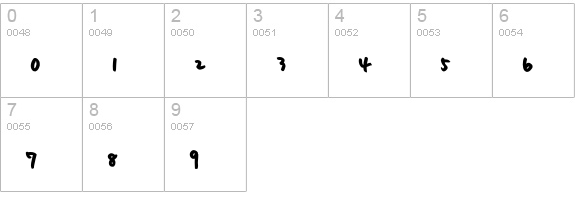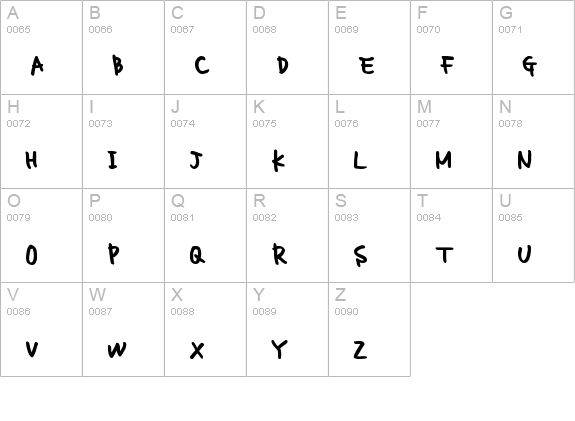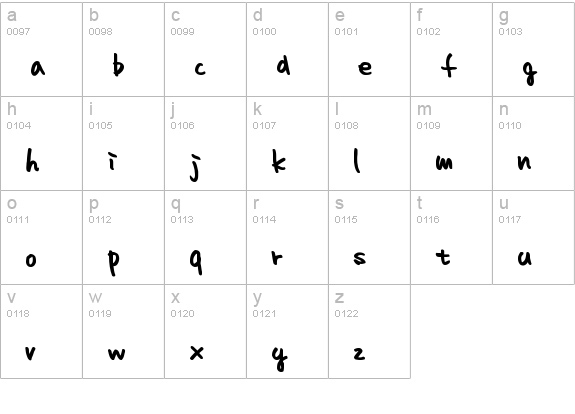
homework normal Font Details
homework normal is the standard, neutral variant in the homework typeface family \xE2\x80\x94 well suited to general body text, paragraphs, and standard typographic work.
This homework normal font is a versatile and professional typeface that is perfect for all your academic and professional needs. With its clean lines and classic design, this font is sure to make your work stand out. Whether you're working on an essay, presentation, or report, this font will help you communicate your ideas effectively. The best part is that this font is completely free to download at FontsMarket.com. You don't have to worry about any hidden fees or subscriptions - simply visit the website and start using this font right away. With its wide range of characters and symbols, this font is suitable for a variety of projects and applications. Don't settle for boring or outdated fonts - download this homework normal font today and take your work to the next level. Whether you're a student, teacher, or professional, this font is sure to become a valuable addition to your font collection. Download it now and start using it in all your projects!